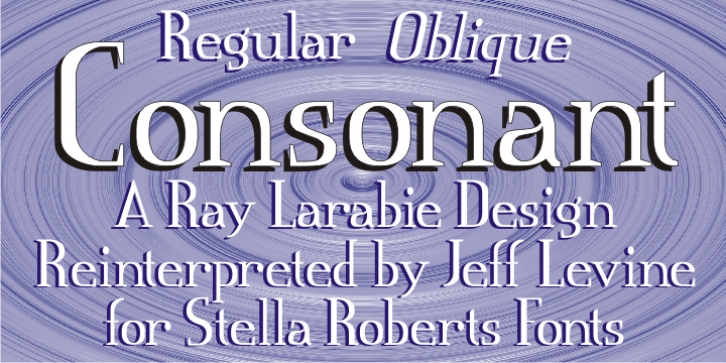
Consonant SRF was published by Stella Roberts Fonts. Consonant SRF contains 2 styles and family package options.
This imaginative and unusual serif text face was developed by Jeff Levine from an old Ray Larabie design. Improved and updated, it is exclusive to Stella Roberts Fonts.